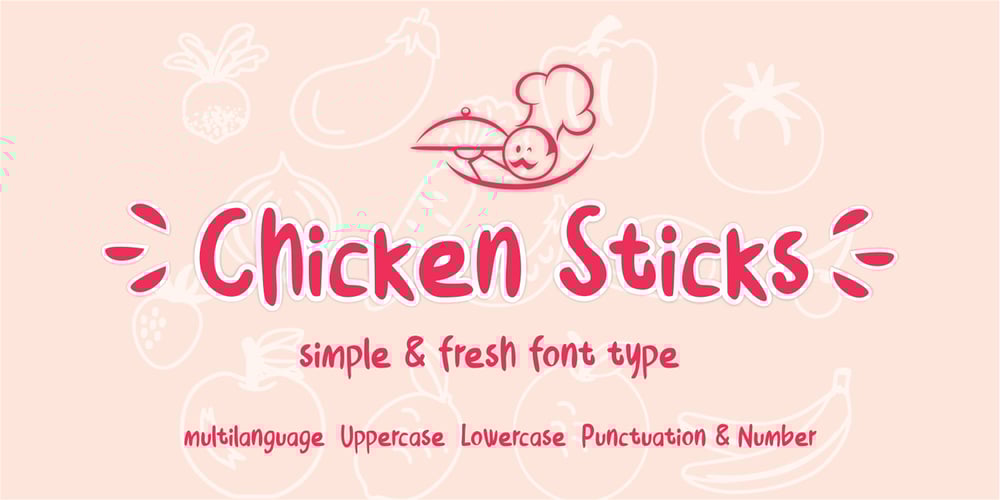
Chicken Sticks Font Family was designed by Daddi Daryawan and published by Creativework Studio. Chicken Sticks contains 1 styles and family package options. Chicken Sticks is a simple and cheerful display font. It brings cute soup-themed vectors to add to your projects! Use this unique font to bring any DIY project to life!